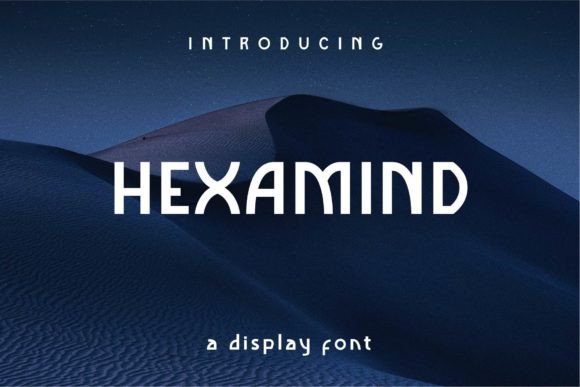
**Introducing Hexamind: The Ultimate Font for Striking Digital Designs**
Prepare to unleash your creativity and leave an unforgettable impact with Hexamind, the modern and bold display font that transcends the ordinary. Hexamind's captivating presence is perfectly tailored for any digital realm, turning your designs into masterpieces that resonate with viewers.
**The Quintessence of Elegance and Innovation**
Hexamind is not merely a font; it's an artistic expression that embodies elegance and innovation. Its unique and timeless style adds a touch of sophistication to any design, elevating your creations beyond the mundane. Whether you're crafting a captivating logo, a visually stunning website, or eye-catching print materials, Hexamind empowers you to forge an identity that commands attention.
**A Canvas for Your Imagination**
With its distinctive and stylish letters, Hexamind becomes a canvas for your imagination, adding a touch of personality and interest to every project. Its versatility knows no bounds, making it an ideal choice for a diverse range of industries, from the vibrant world of fashion to the captivating realm of music and the silver screen of film.
**Unleash Your Vision with Hexamind**
Hexamind is the ultimate weapon in your design arsenal, empowering you to break free from the confines of ordinary fonts and embrace a world of endless possibilities. Its bold and modern strokes will ignite your creativity, allowing you to craft designs that captivate and leave a lasting impression.
**Experience the Hexamind Advantage**
Join the ranks of discerning designers who have discovered the transformative power of Hexamind. Let its unique style elevate your work to new heights, attracting attention and admiration from all who encounter your creations. Hexamind is more than just a font; it's an investment in your creative journey, a key that unlocks the door to unforgettable designs.